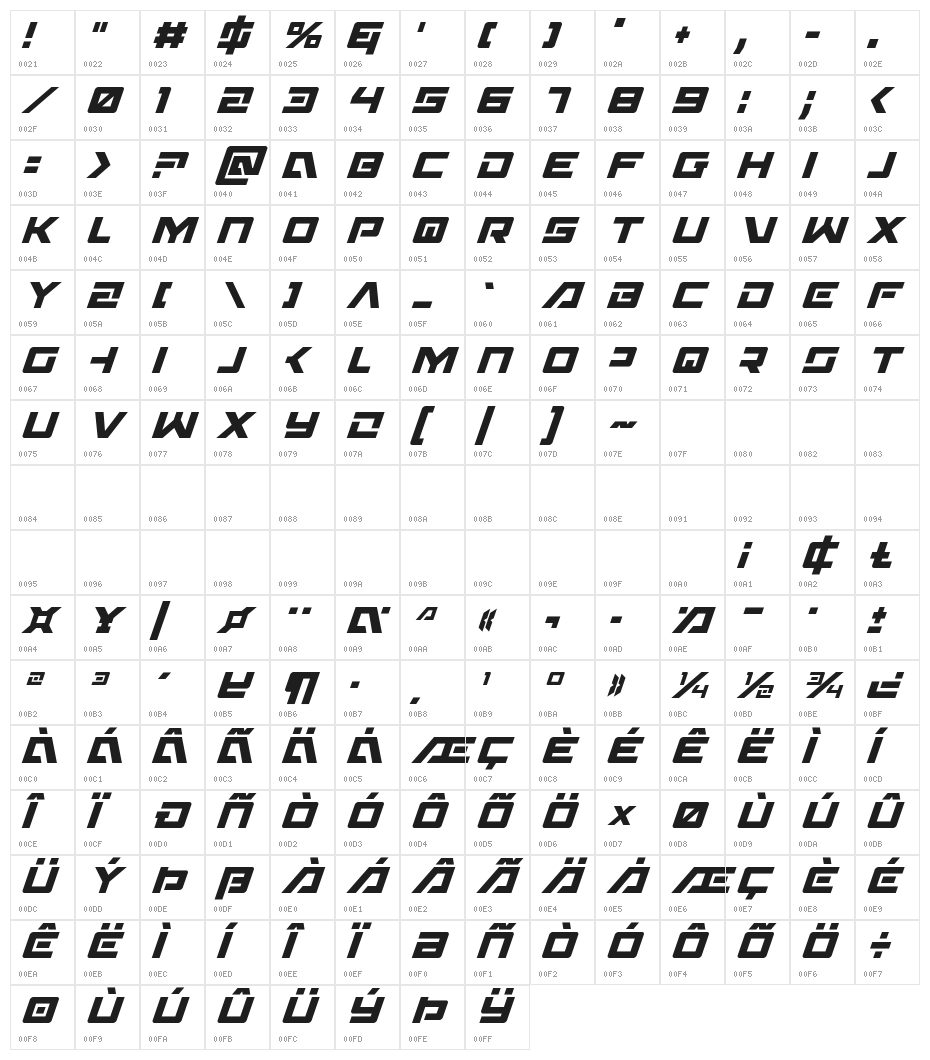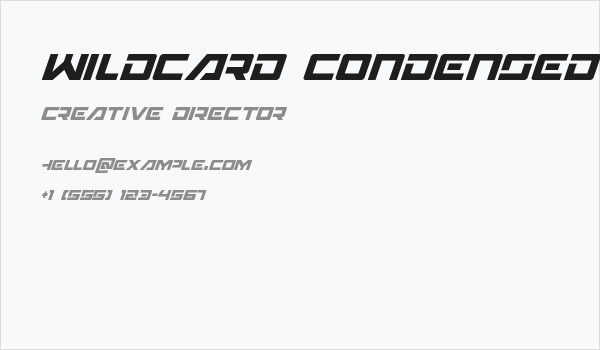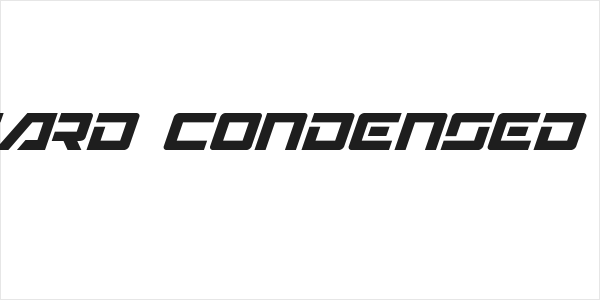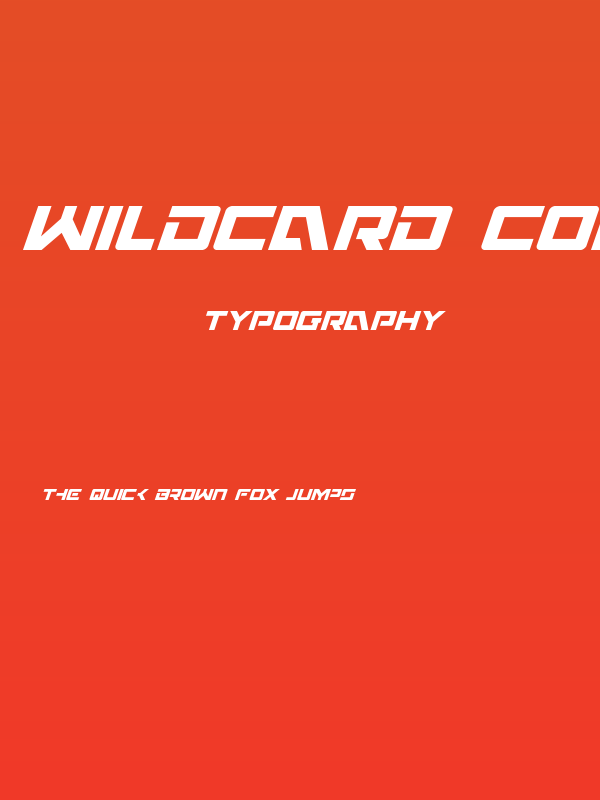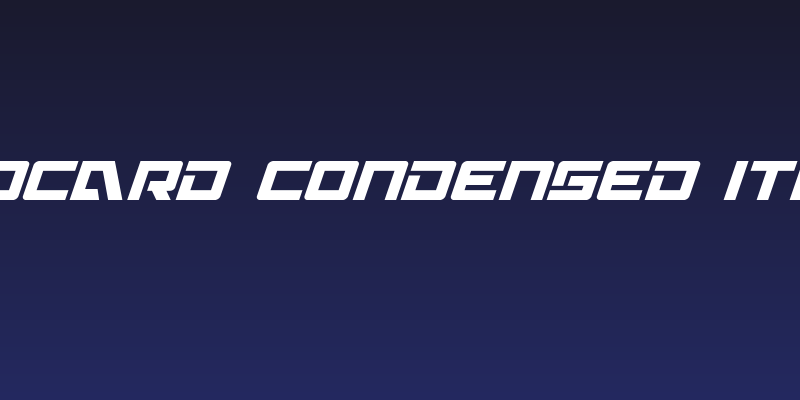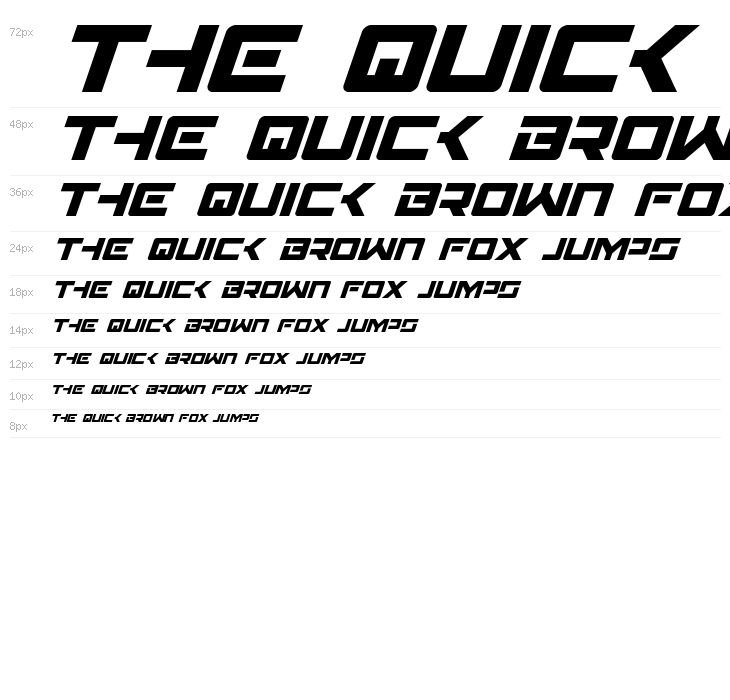
Wildcard Condensed Italic Font
This font features a bold and dynamic design with a condensed and italicized style. The characters are angular and geometric, giving a futuristic and sporty appearance. The strong diagonal slant adds a sense of motion and speed, making it ideal for attention-grabbing headlines. The uppercase and lowercase letters maintain a consistent style, with sharp edges and a uniform height. The numerals and special characters are designed to match the overall aesthetic, ensuring a cohesive look across all text elements.